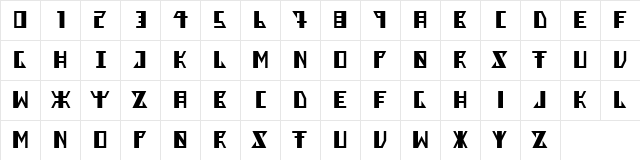
Berkel Regular
| Foundry | Sander de Voogt |
| Designer | Sander de Voogt |
Design Context for Berkel Typeface
Berkel is a composed and adaptable typeface that performs quietly and consistently across a wide range of design contexts.